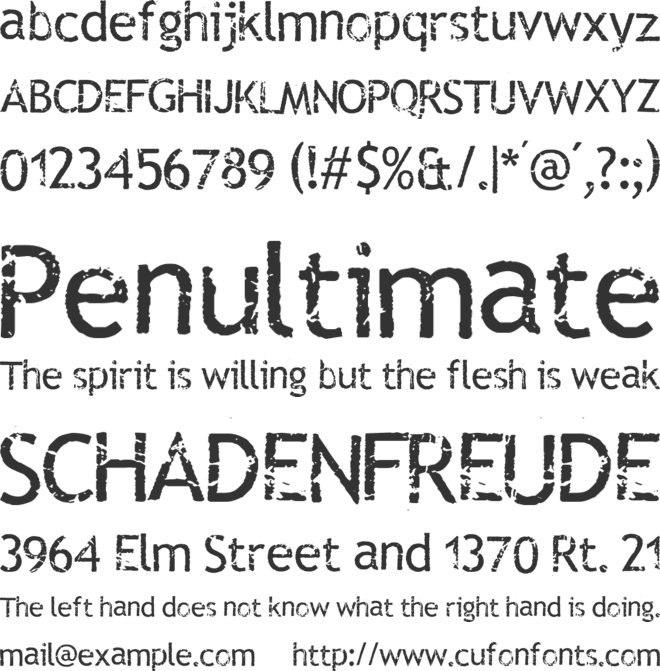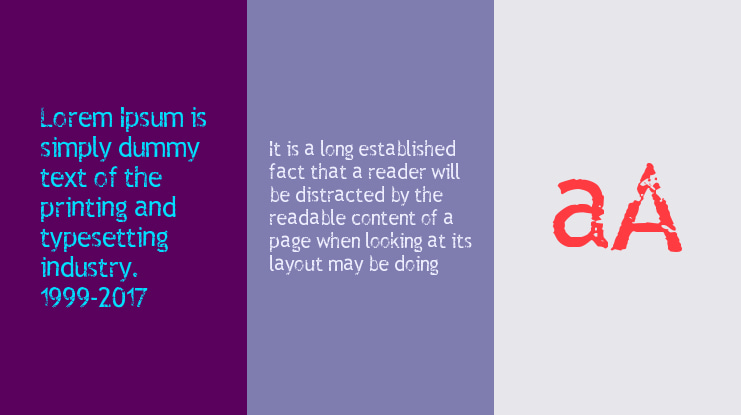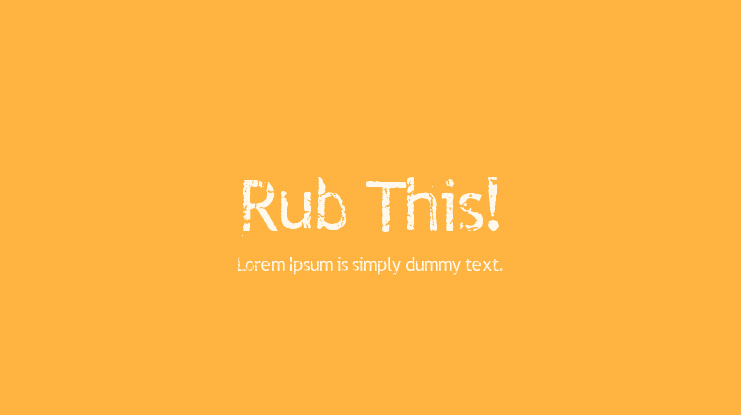
Rub This! Font
Cumpled paper - Fresh out of the dryer... English, Scandinavian and German characters included). To register (2$), open the readme in the zip file.